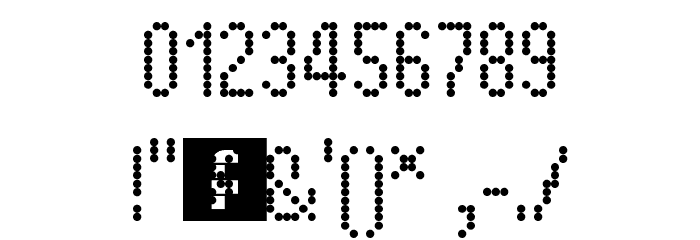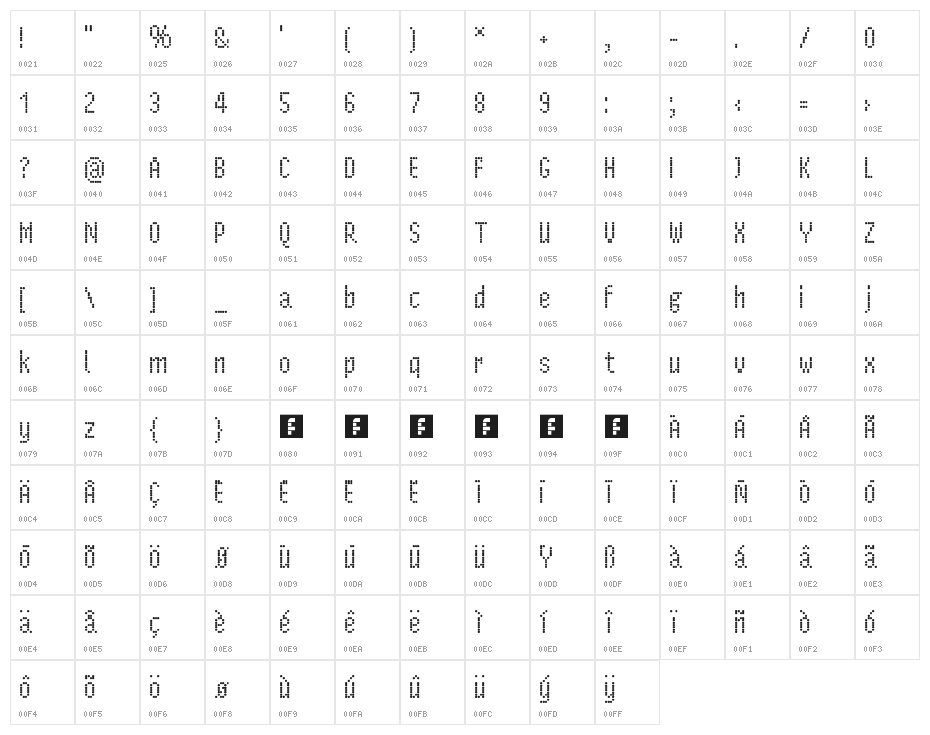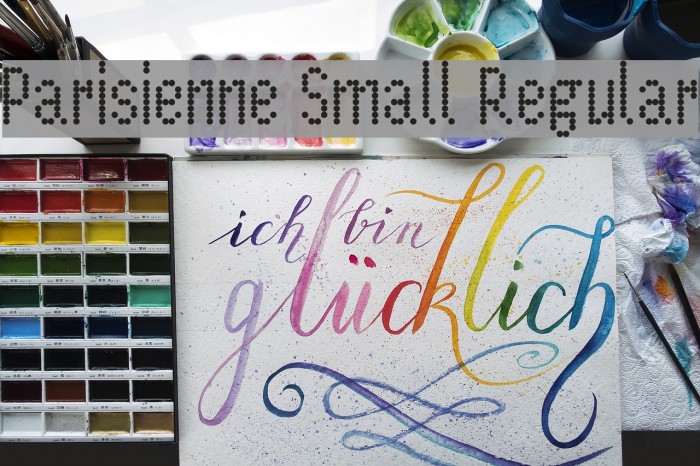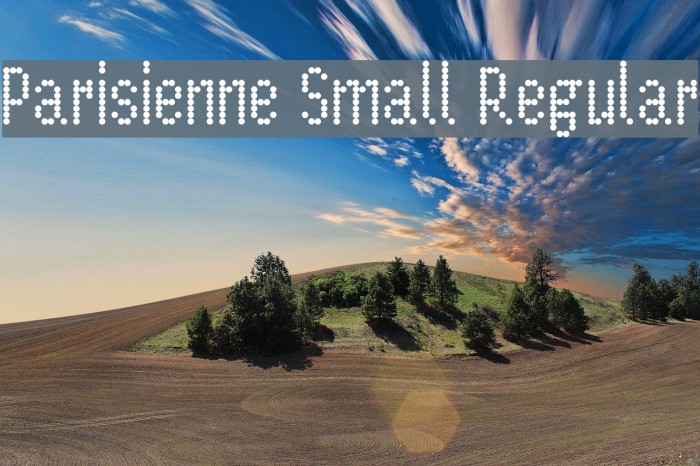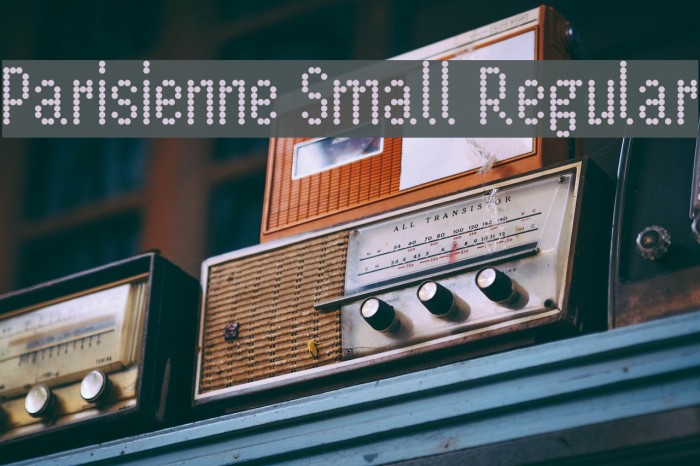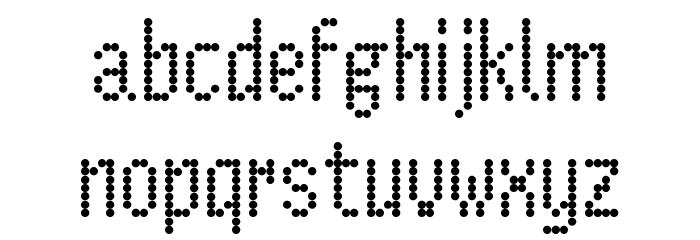
Parisienne Small Regular Font
Parisienne Small Regular Description
This font features a unique dot matrix style, where each character is composed of small, evenly spaced dots. The design is reminiscent of retro digital displays or LED signs, providing a distinct and playful aesthetic. The uppercase and lowercase letters maintain a consistent structure, with rounded edges formed by the dots. Numbers and special characters follow the same dot pattern, ensuring uniformity across all glyphs. This font's playful and distinctive appearance makes it ideal for creative projects that require a touch of nostalgia or a digital theme.
| Use Case | Logos, Posters, Digital Art |
| Proposed Projects | Ideal for retro-themed designs, digital art projects, LED sign simulations, and playful branding. |